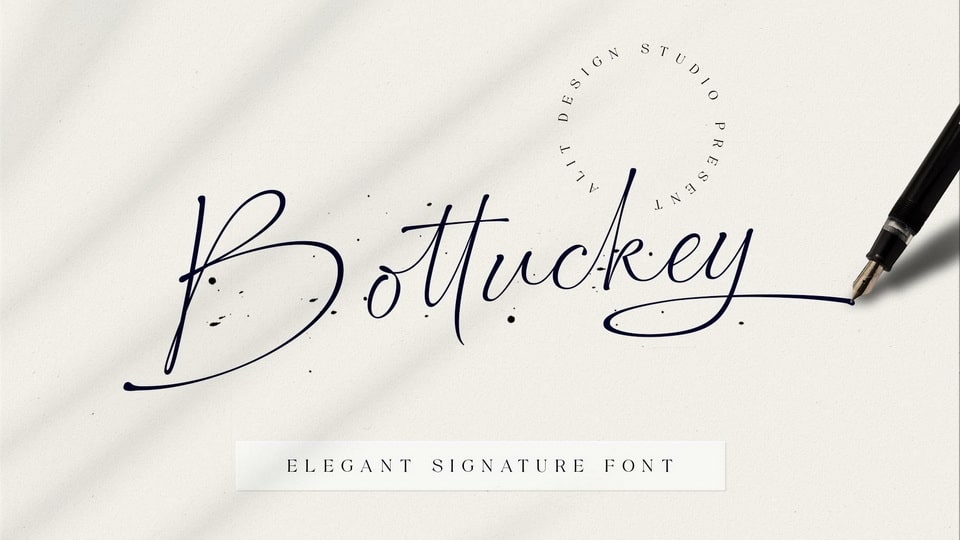
Download Bottuckey font, a script typeface inspired by spontaneous and dynamic signature strokes with ink texture like real handwriting. Bottuckey font looks unique and charming which makes designs look more prominent and cool.